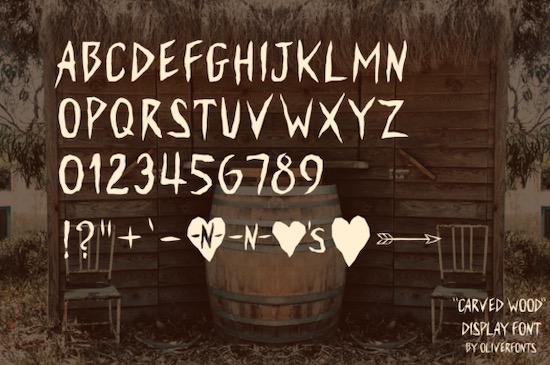
Carved Wood font
Introducing Carved Wood font. This is a natural display typeface, it was designed and released by OLIVERFONTS. It’s inspired by classy and classic art. A beautiful and gorgeous display font with unique alternate characters. This typeface is very suitable to make a design for website headers, packaging, letterhead, magazines, branding, greeting cards, posters, and so on.
With this typeface, E.g, If you use this display font in the printing industry then it will give a gorgeous touch to your every design. But if we use Carved Wood font for a display project, it will give us a legendary and vintage feel.
Carved Wood font works well with medium size text, but it works even better for small and large displays. Along with a classic taste that can make your designs become more interesting a lot. Carved font with special alternative glyphs, and multilingual support. it’s inspired by the architecture movement and decorative arts.